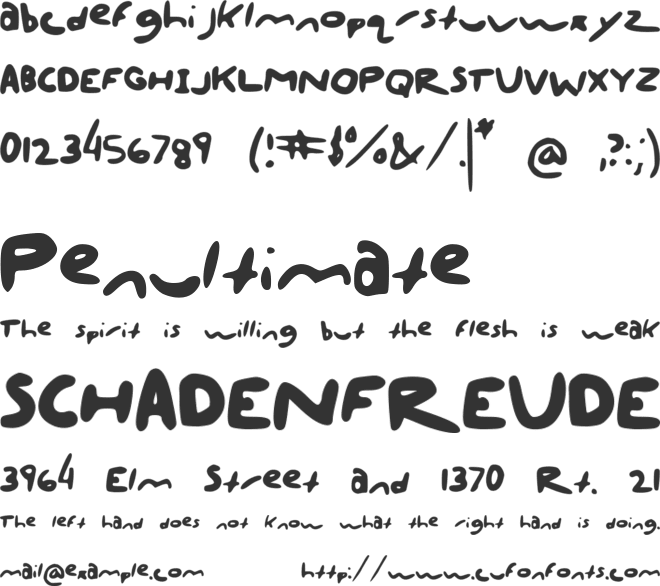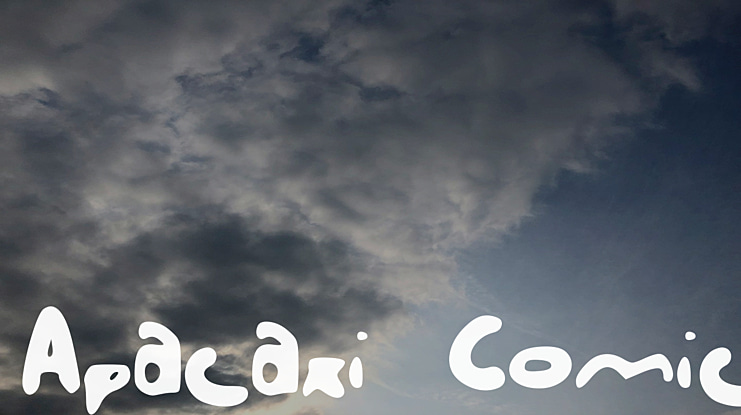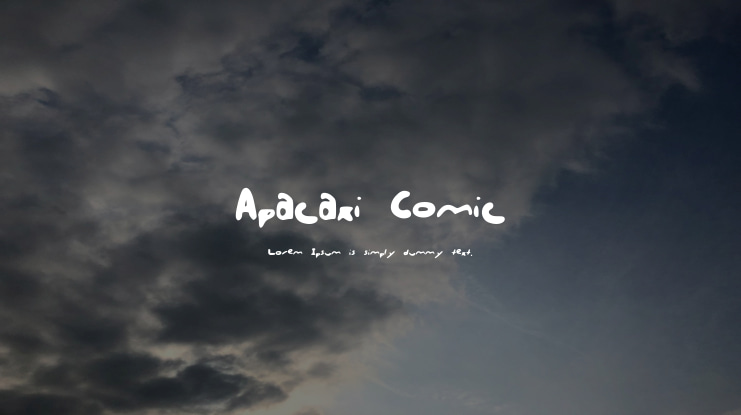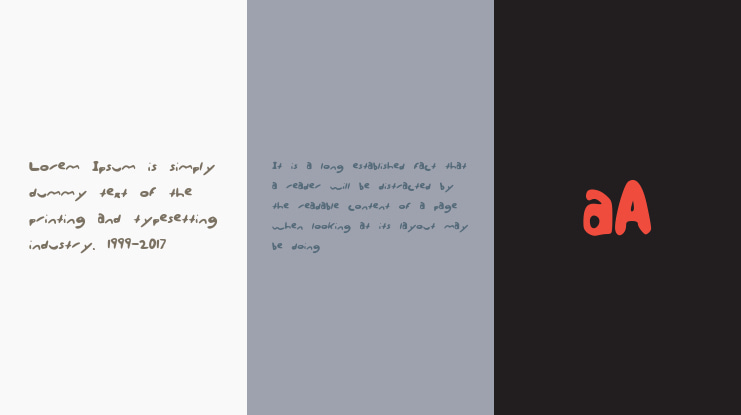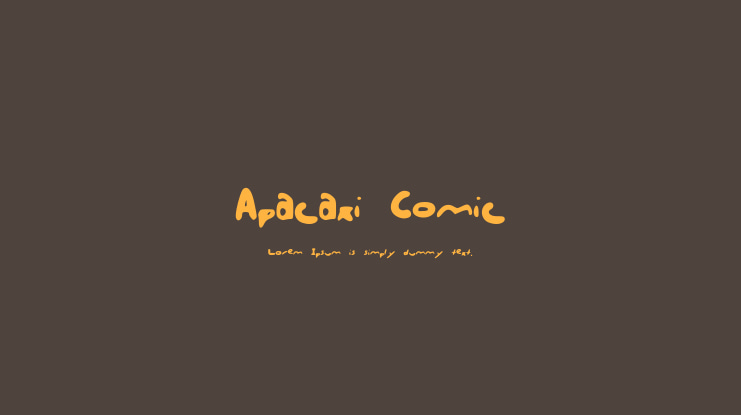
Apacaxi_Comic_ Font
APACAXI COMIC is optimized for caps (very optimized), so I highly recomend its use in caps. This was also designed for use in comics, or comical things. You can use it however, anyway you like, without restrictions, except saying that you created the font, because that's not very nice, and I don't appreciate it. If you like it, make it famous by sharing please. Also, my website is: http://atomicacid.blogspot.com/ Please go on it, that would be really nice of you. THANKS!